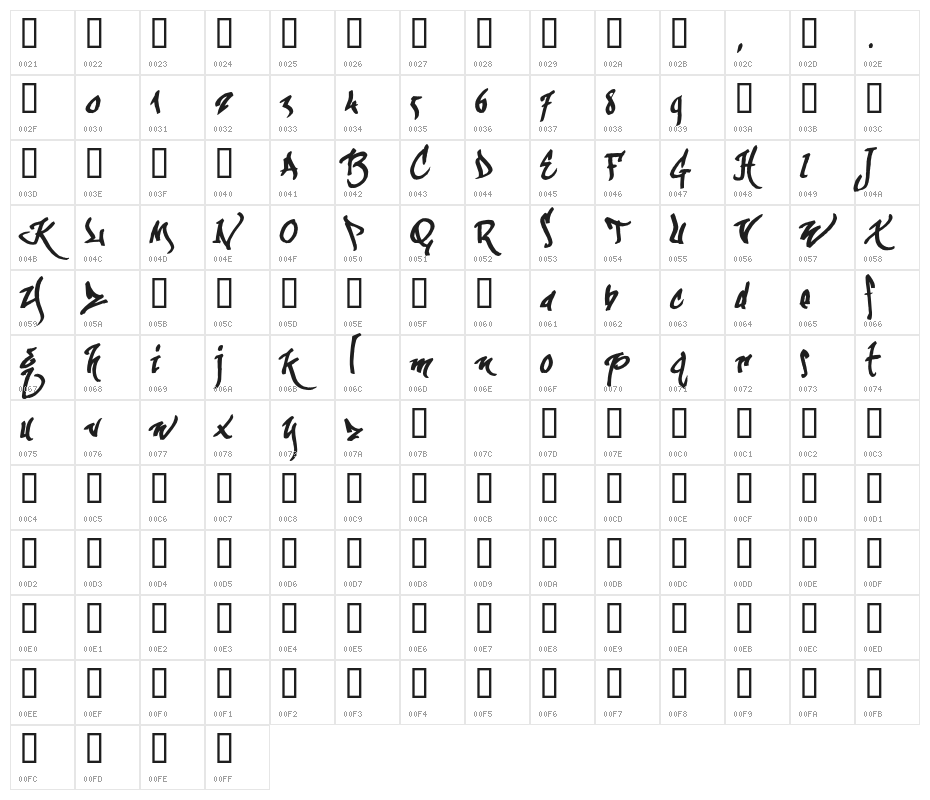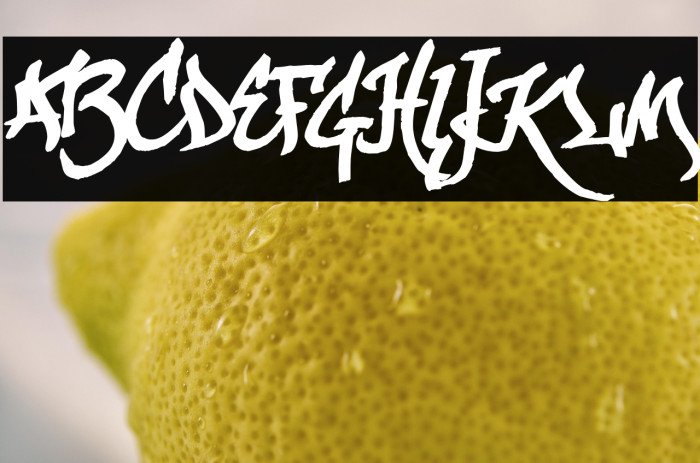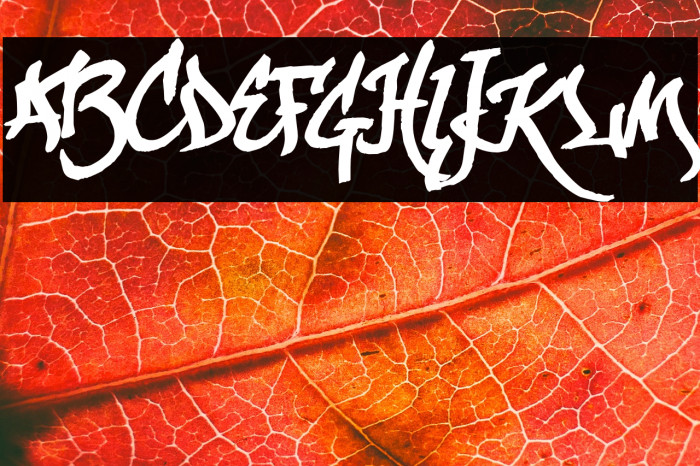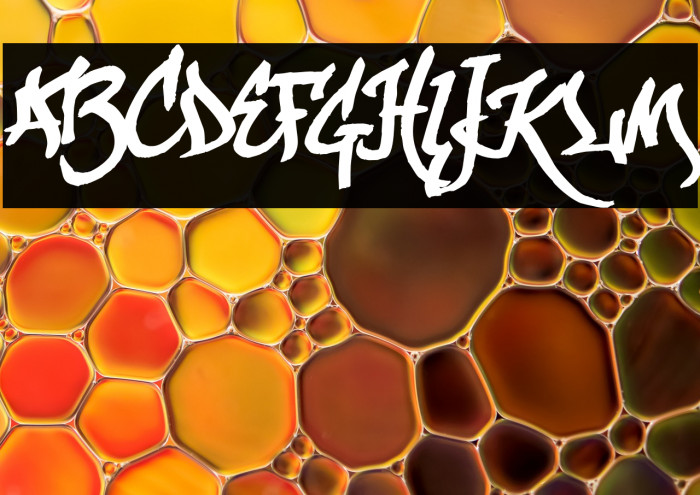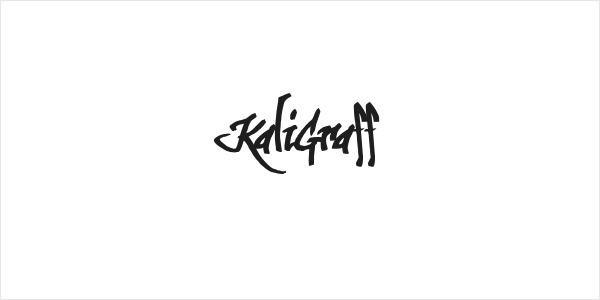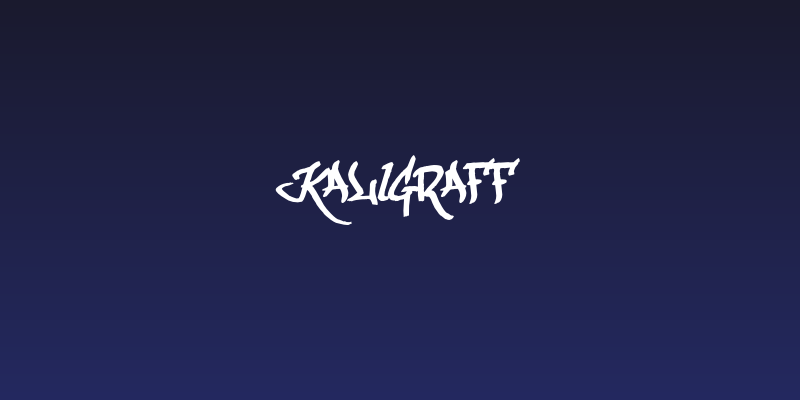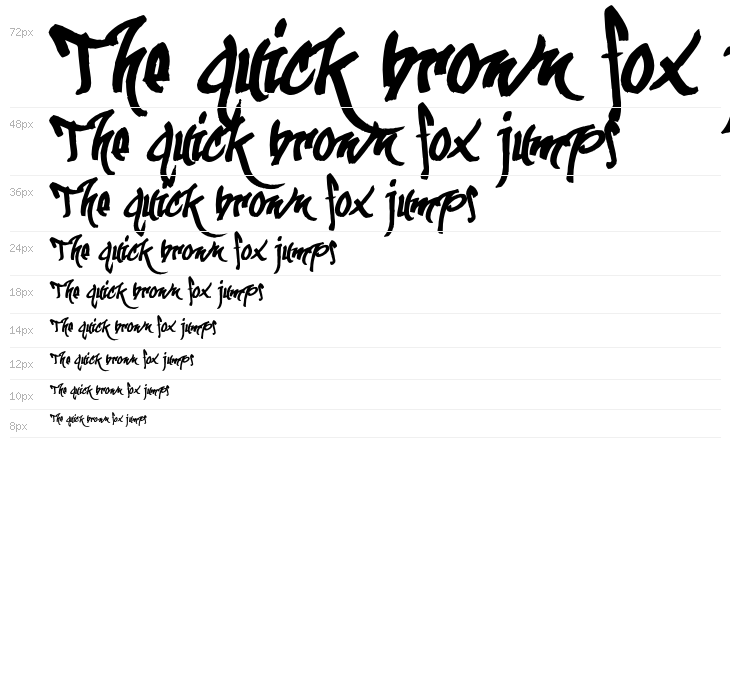
KaliGraff Font
KaliGraff Description
This font features a bold and expressive style, reminiscent of graffiti art. The characters are highly stylized with exaggerated curves and sharp angles, giving it a dynamic and energetic appearance. The uppercase and lowercase letters maintain a consistent flow, while the numbers and special characters complement the overall aesthetic. The font's design suggests a sense of movement and creativity, making it suitable for projects that aim to capture attention and convey a sense of urban or artistic flair.
| Overall Style | Modern, Urban |
| Proposed Projects | Ideal for street art designs, urban-themed posters, music album covers, and creative branding projects. |